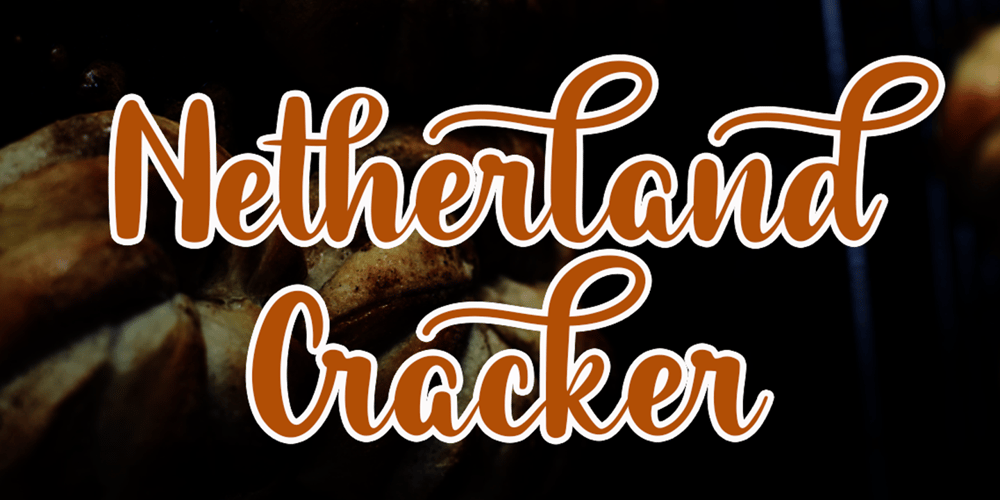
Netherland Cracker Font Family was designed by Sarwo Edhi Prayitno and published by Haksen. Netherland Cracker contains 1 styles and family package options. A Handwritten font with modern fun calligraphy styleSpecifics: Cute and pretty style with alternates in lowercase Numerical, Punctuation, Multi language included Happy Designing!